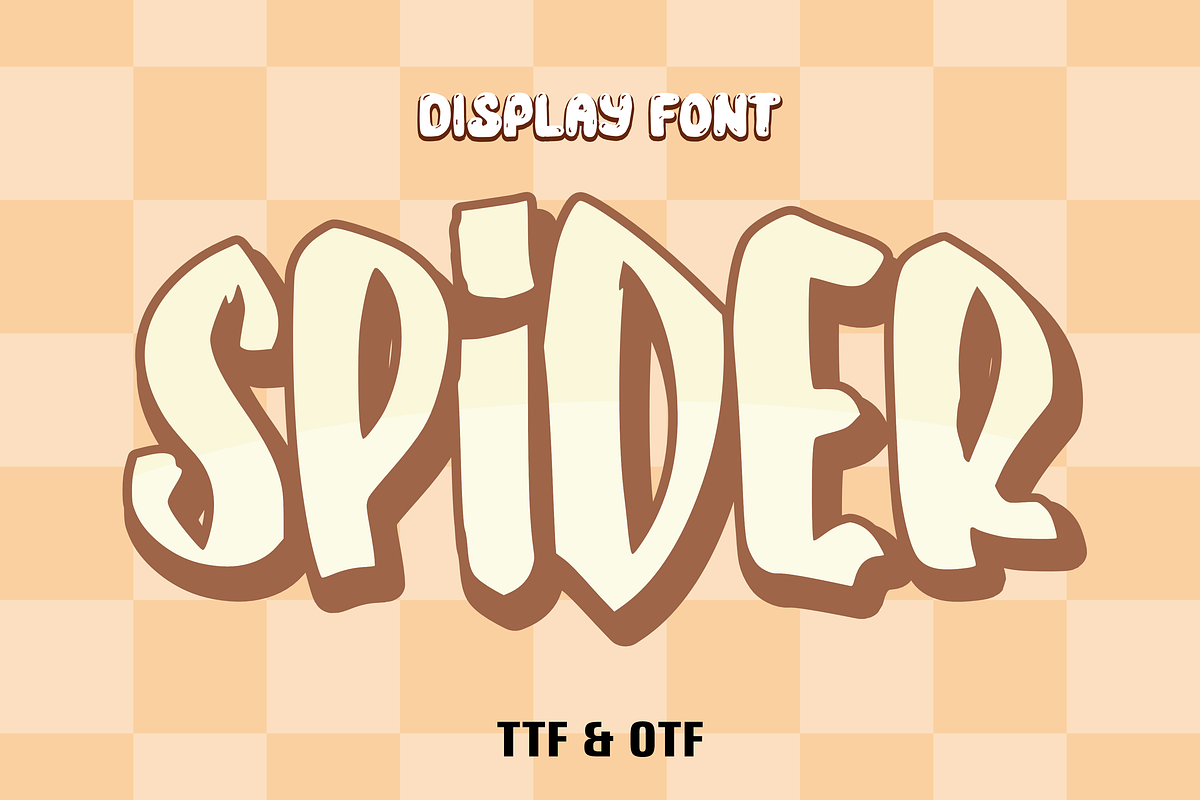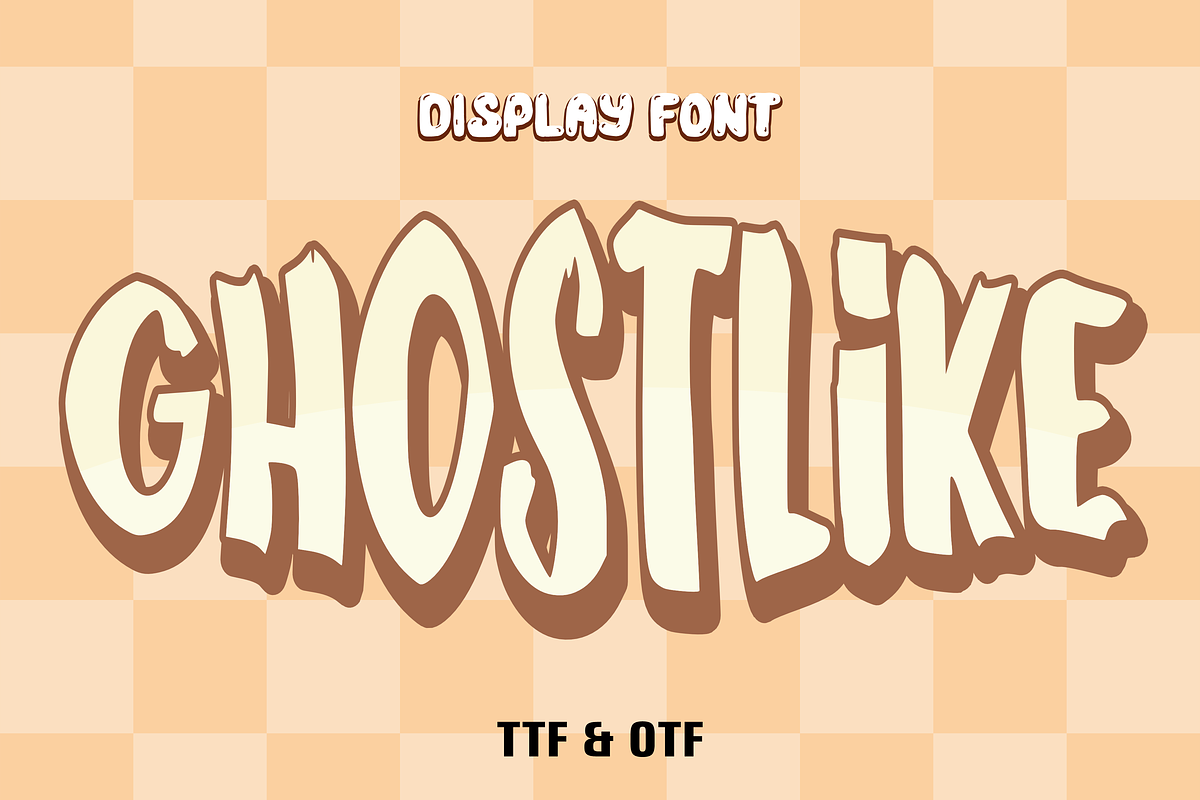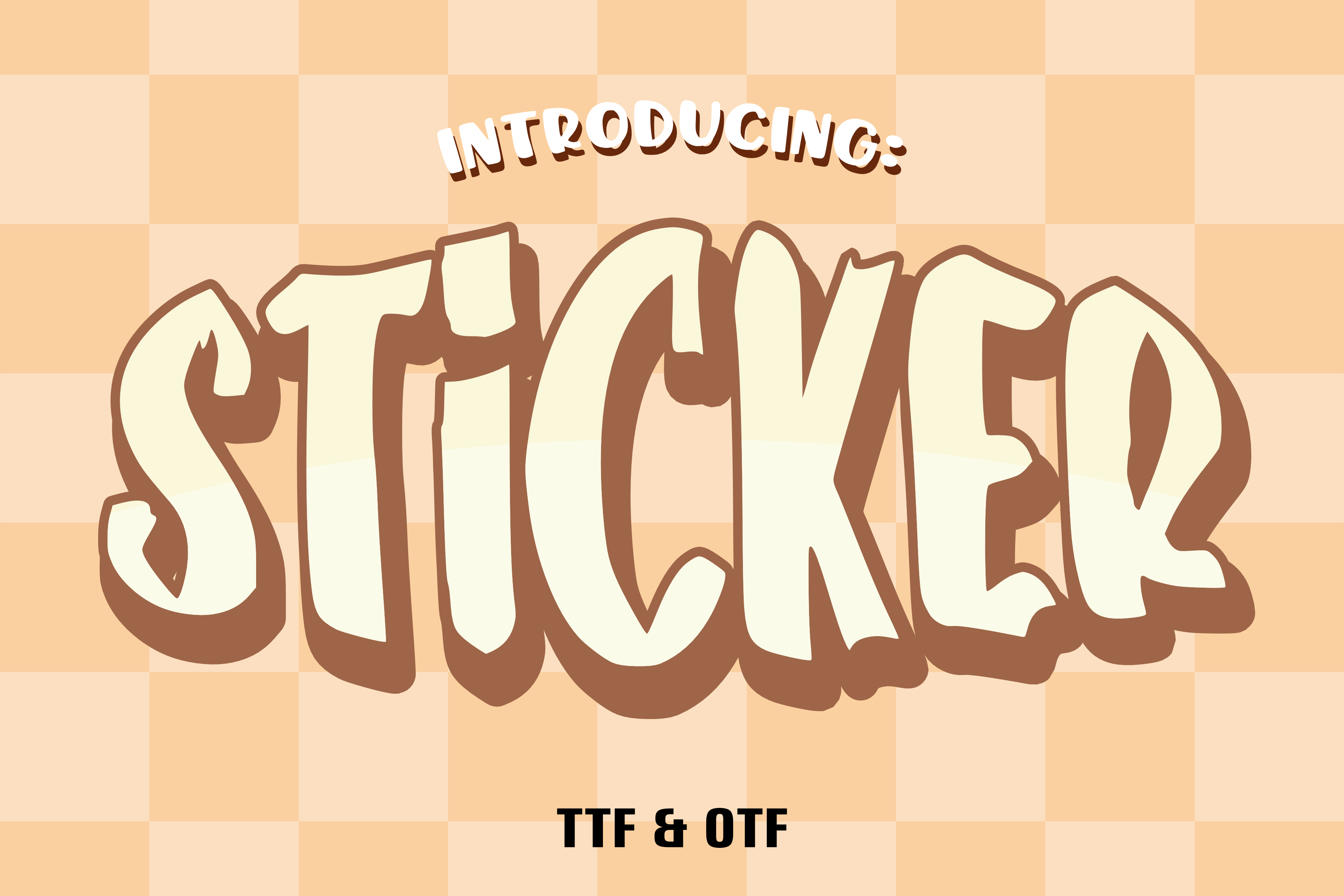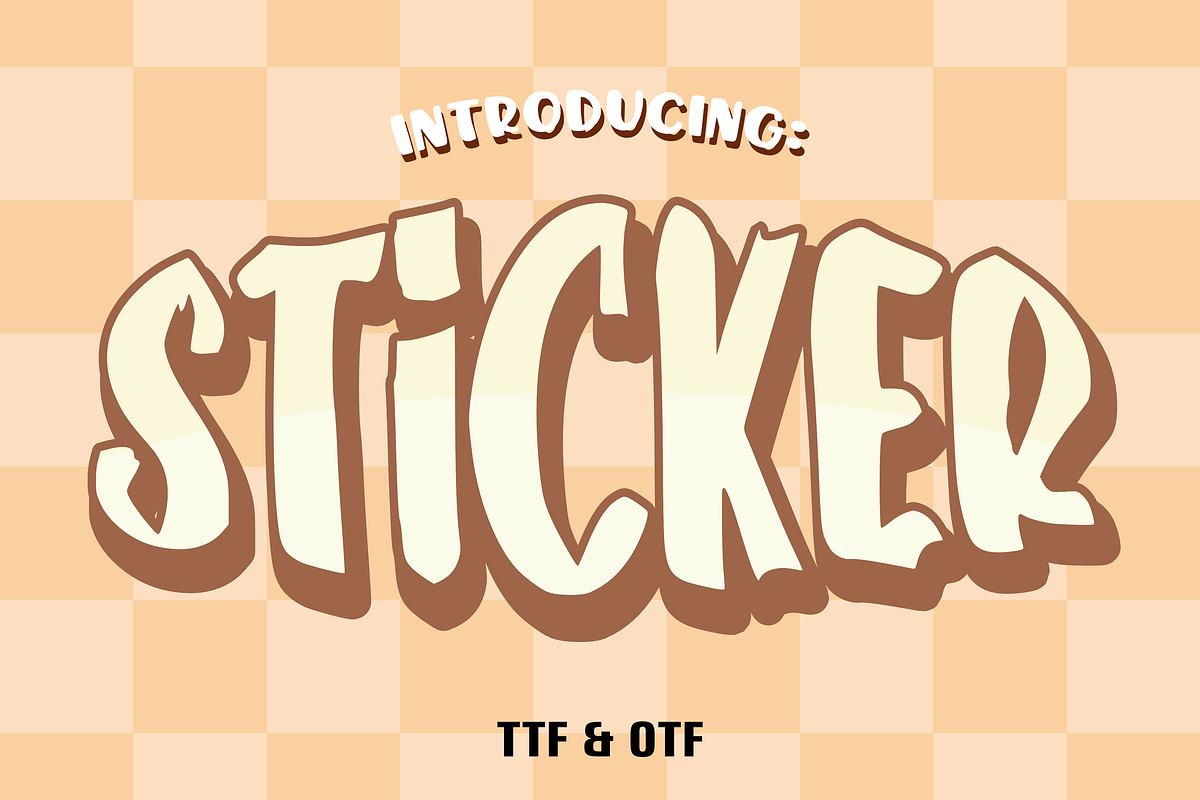
Sticker - Cartoon Font Types
Introducing Sticker, a vibrant retro font that exudes charm and boldness, bound to inject an air of buoyant vintage sophistication into your designs. Perfectly marrying a classically elegant style with a delightful retro vibe, it excels in an array of applications. Sticker serves as an ideal choice for jovial children’s designs, charming birthday invitations, nostalgic summer themes, or stylish vintage-inspired looks. It is a dynamic match for crafting projects, playful stickers, distinctive t-shirts, or captivating sublimation designs, guaranteeing your projects an irresistibly cheerful impact with every use. Sticker doesn’t just spell out words; it tells enchanting stories.